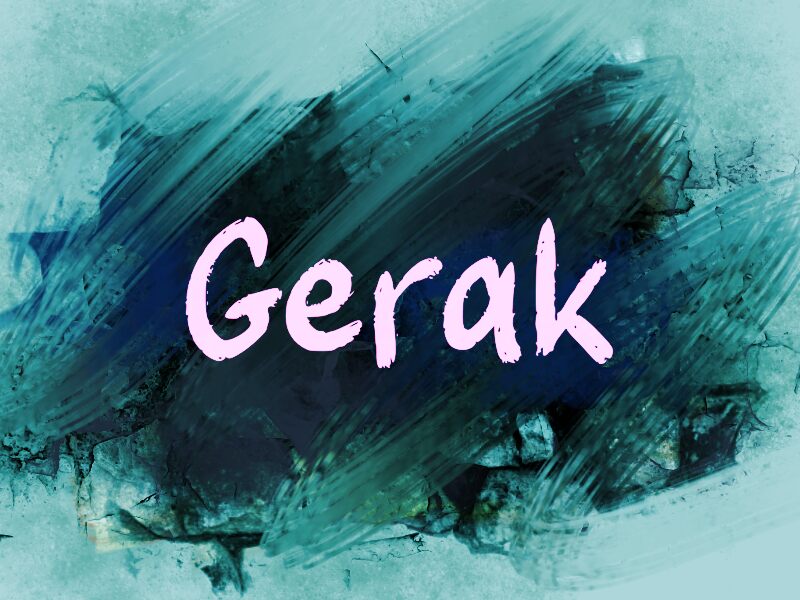
Gerak
The Gerak font, designed by wep, is a captivating script that exudes a delightfully weathered charm. Its bold, expressive strokes and organic fluidity create a striking visual impact, evoking a sense of raw energy and artisanal authenticity. The font's distinctive character shines through in its playful, hand-crafted aesthetic, making it a captivating choice for projects seeking a visually striking and emotive typographic treatment.
The Gerak font's versatility allows it to shine in a variety of design contexts, from edgy branding and packaging to eye-catching editorial layouts and rustic-inspired wedding stationery. Its unique personality lends itself particularly well to projects that aim to convey a sense of craftsmanship, authenticity, and a touch of rebellious spirit.